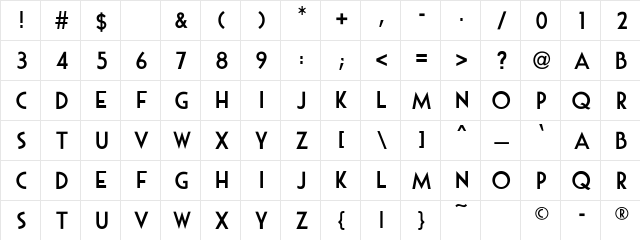
Mouse Deco Regular
| Designer | Supercarguy |
Design Context for Mouse Deco Typeface
Mouse Deco offers clean, dependable letterforms without strong stylistic allegiance, making it a practical choice for designers who need flexibility.